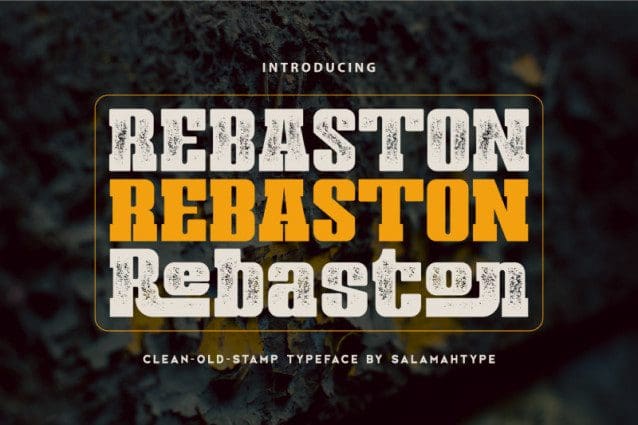
Rebaston Grunge Font
Rebaston Grunge Font is a display serif typeface with 40 ligatures and comes with a stamp style, which makes it perfect for developing logos and meeting a variety of branding needs. Its special stamp style gives your design a unique and classic touch.